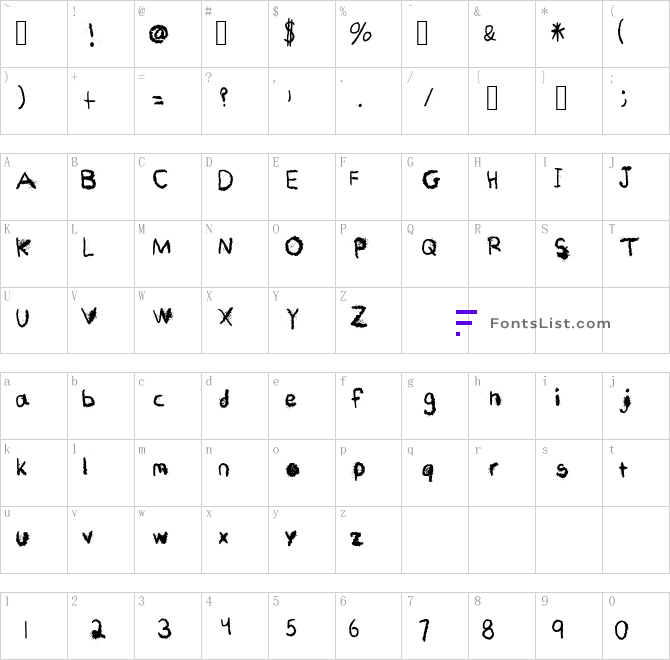
- Font Name:Ashes, Ashes
Ashes-Ashes-Medium.ttf is a very beautiful artistic font, Ashes-Ashes-Medium.ttf is widely used in the design and printing of various books and pictures,Ashes-Ashes-Medium.ttf has a strong visual impact,Ashes-Ashes-Medium.ttf is a commonly used font in newspapers, magazines and books, and is used in posters, e-commerce Poster design, store design, logo design, font design and other fields.Ashes-Ashes-Medium.